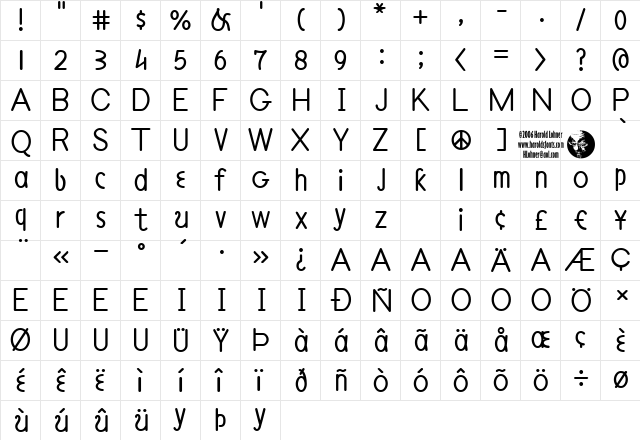
Philadelphia Line Regular
Design Context for Philadelphia Line Typeface
Philadelphia Line is a composed and adaptable typeface that performs quietly and consistently across a wide range of design contexts.